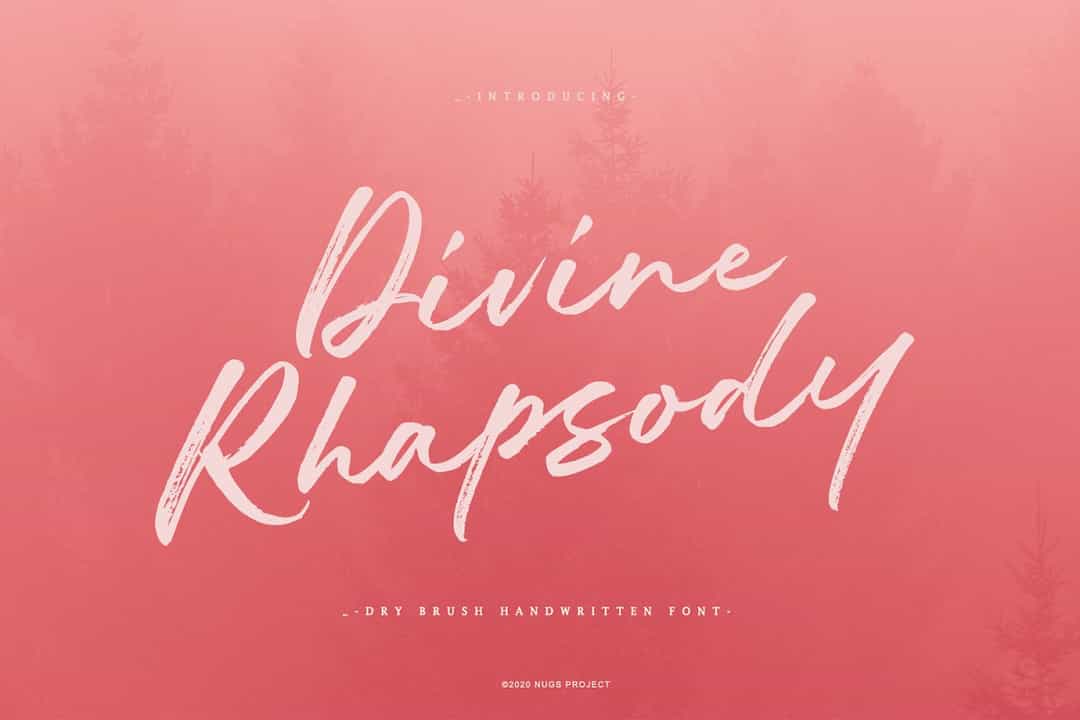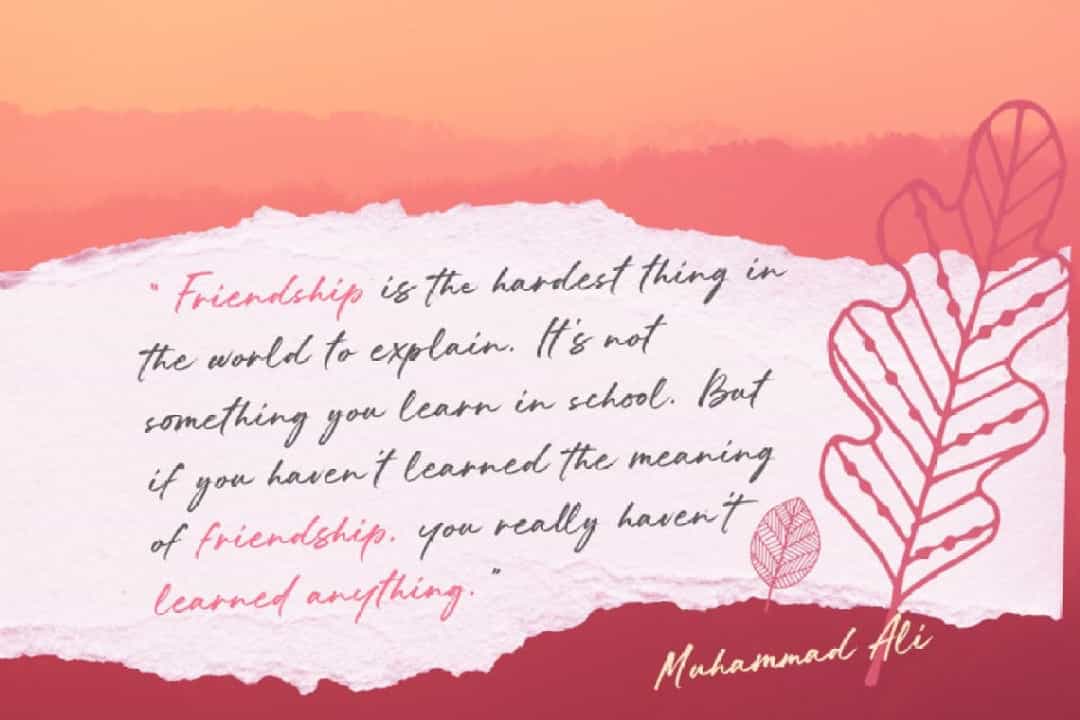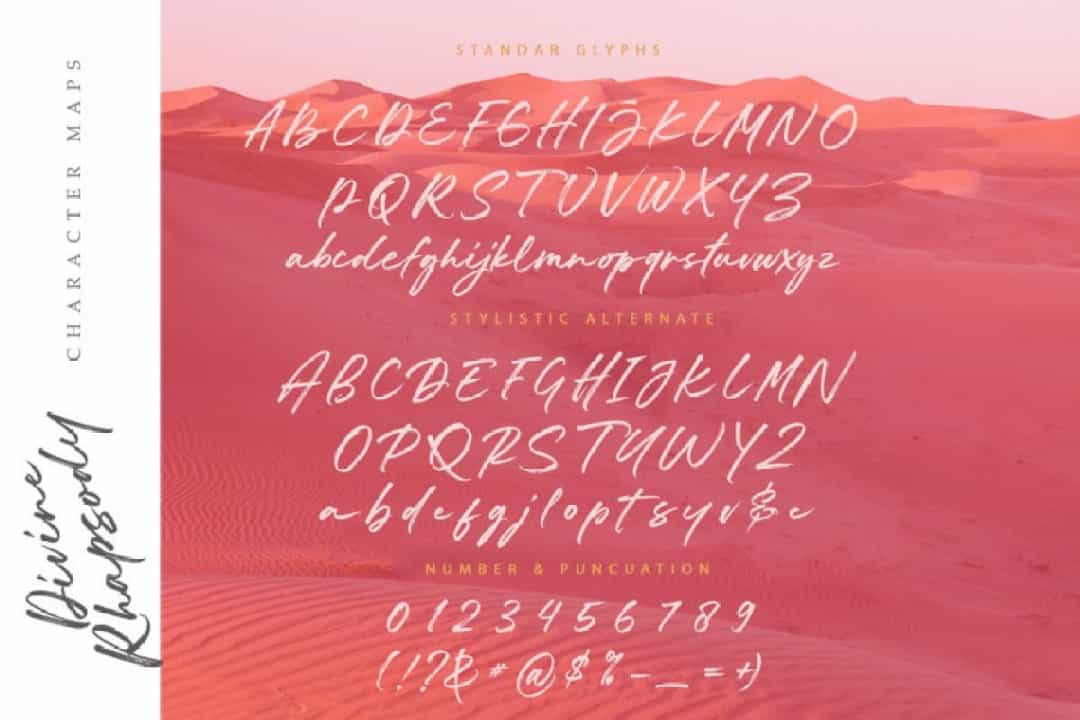
Divine Rhapsody font has a very natural feel to the strokes that were made to give a more textured look to the text making this font perfect for branding purposes, signature wedding fashion, for titles of photographs, posters, banners for social media, adverts, book covers, packaging, handwritten quotes and greetings, cards, etc. All fonts with any letter and number case, with all kinds of punctuation, in TTF or OTF formats.